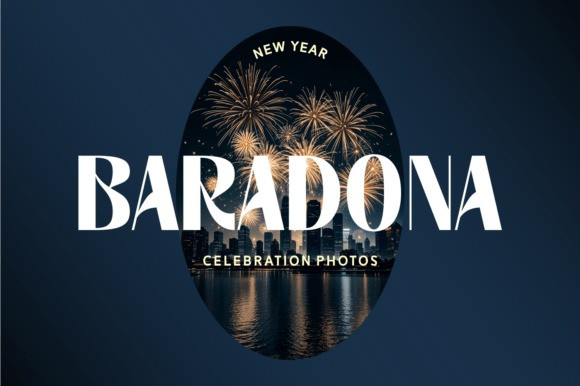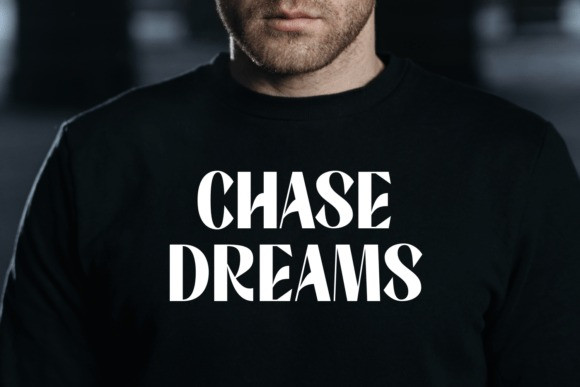
Cheerful Moments Font
Cheerful Moments Font an all-encompassing selection designed for versatility. This font collection radiates effortless sophistication with its crisp, clear-cut design, primed to bring a touch of finesse to your branding endeavors. Adorned with alternate and accent fonts, it presents an ideal choice for creating authentic apparel or crafting catchy taglines. The Cheerful Moments Sans Serif collection spans a whole gamut of applications, from eye-catching book covers to crisp magazine layouts. The natural appeal, easy legibility, and round, smooth contours make it apt for product packaging or embedding notable quotes on merchandise. Make a bold impression with the stunning swash fonts, paving your way to unique logotypes or let your style quotient soar with trendy t-shirt fonts by 7ntypes. The font family is inclusive of the standard Regular font, a creative Italic style, and a variety of seasonal and up-to-the-minute fonts, keeping your work fresh and appealing all year long. Cheerful Moments Sans Serif Fonts support multiple languages, enhancing their usability and allure. Armed with this comprehensive font arsenal, portray your designs with unshakeable confidence, knowing that you possess fonts that will resonate with any project at any time.